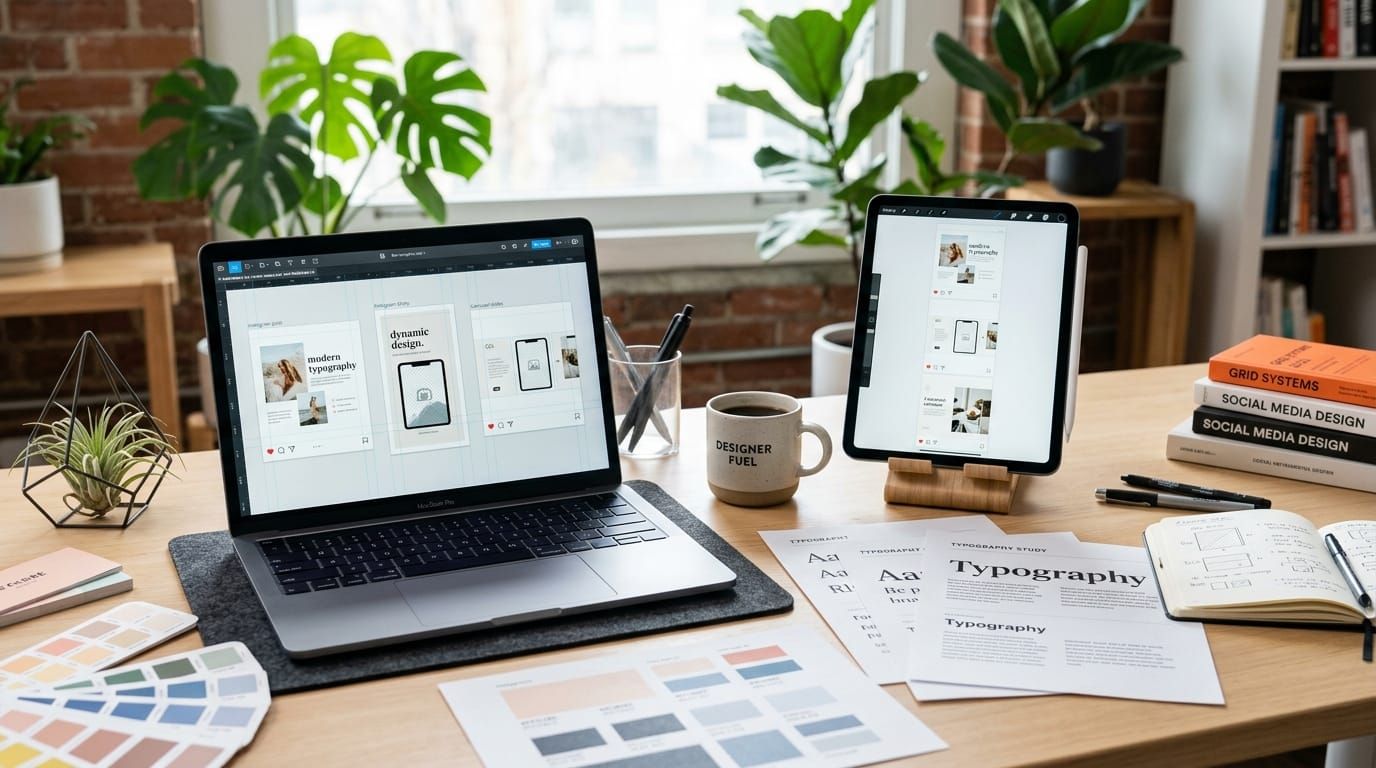
Social Media Design Tutorial with Simple Tips and Examples
If you want to improve your content quality, following a social media design tutorial is one of the best ways to start. Many creators and marketers struggle to create posts that look clean, engaging, and professional. With the right social media design tutorial, you can learn how to design visuals that capture attention and communicate clearly.
In this guide, you’ll discover a complete social media design tutorial with simple tips and real examples. Whether you are building a brand or managing content for clients, this social media design tutorial will help you improve your results.
Why a Social Media Design Tutorial Matters for Creators
Understanding how to design social media posts helps you create content that stands out.
• Better engagement
• Stronger branding
• Clear communication
When you follow a structured how to design social media posts, your content becomes more consistent and effective.
Key Elements in a Social Media Design Tutorial
Before applying tips, it’s important to understand the basics of a how to design social media posts.
1. Clear Visual Hierarchy
Guide the viewer’s attention to key elements.
2. Consistent Branding
Use the same colors and fonts across posts.
3. Readable Typography
Ensure your text is easy to read on all devices.
4. Balanced Layout
Avoid clutter and keep your design clean.
These elements are essential in any social media design.
Simple Social Media Design Tutorial Tips for Better Content
Applying the right techniques from a social media design tips can instantly improve your visuals.
1. Use Fewer Colors
Stick to 2-3 colors for consistency.
2. Choose Strong Fonts
Use clear and readable fonts.
3. Focus on One Message
Avoid overcrowding your design.
4. Use High Quality Images
Visual quality impacts perception.
These tips are core parts of a successful social media design.
Social Media Design Tutorial Examples for Inspiration
Looking at examples helps you understand how to design social media posts works in practice.
1. Minimal Quote Post
• Clean background
• Bold typography
• Simple layout
2. Promotional Post
• Clear headline
• Product image
• Call to action
3. Educational Carousel
• Step-by-step layout
• Consistent colors
• Clear structure
These examples show how to design social media posts can be applied in real content.
Typography Tips in Social Media Design Tutorial
Typography is a key part of any social media design tutorial.
1. Limit Font Pairing
Use only two fonts.
2. Create Hierarchy
Use size and weight to guide reading.
3. Keep It Consistent
Consistency improves brand identity.
Good typography strengthens your social media design results.
Color Strategy in Social Media Design Tutorial
Color plays a major role in visual impact.
1. Use Brand Colors
Maintain consistency across posts.
2. Ensure Contrast
Text should always be readable.
3. Match Mood
Colors should match your message.
These color tips are essential in a social media design.
Tools to Follow a Social Media Design Tutorial
Using the right tools makes how to design social media posts easier to apply.
Popular tools include:
These tools support your social media design workflow.
Common Mistakes in Social Media Design Tutorial
Avoid these mistakes:
• Too many elements
• Poor spacing
• Inconsistent branding
• Low contrast
Fixing these issues improves your social media design results.
Simple Workflow from Social Media Design Tutorial
Follow this workflow:
1. Plan your content
2. Choose layout and style
3. Add text and visuals
4. Adjust spacing and colors
5. Export for your platform
This process helps you apply how to design social media posts effectively.
How a Social Media Design Tutorial Improves Engagement
A strong social media design tutorial helps you create content that attracts attention and keeps users engaged.
It helps you:
• Improve visual quality
• Build brand identity
• Increase interaction
When applied correctly, a social media design can significantly boost your results.
Final Thoughts on Social Media Design Tutorial
Learning a social media design tutorial is one of the best investments you can make as a creator or marketer. By focusing on simplicity, consistency, and clarity, you can create visuals that stand out.
Start with the basics, apply these tips, and keep improving your designs. Over time, your social media design skills will help you create content that looks professional and performs better.